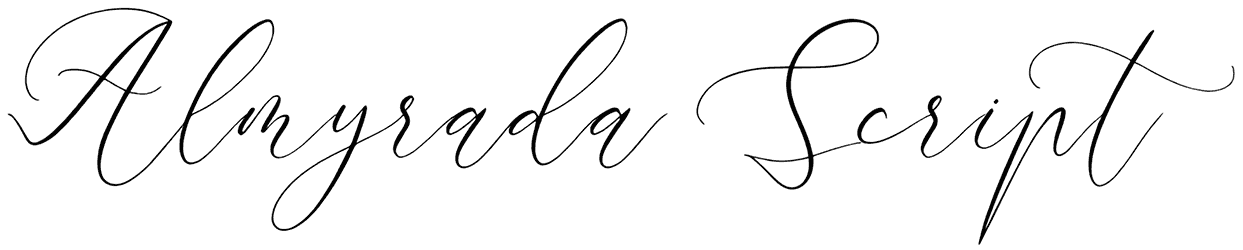
Almyrada Script Font
Use the calligraphy font Almyrada Script if you want your writing to stand out. This thin and fragile font is great for any project, from lettering to artwork, and can give its users a sense of ease and carelessness.